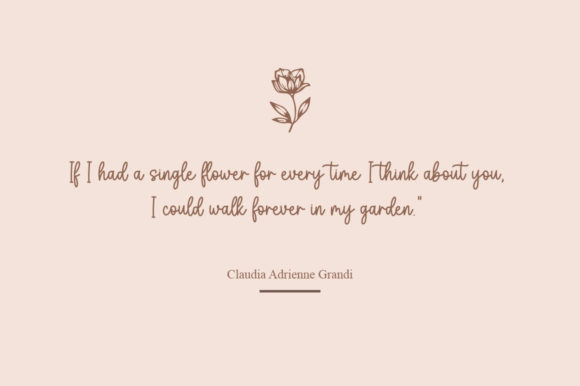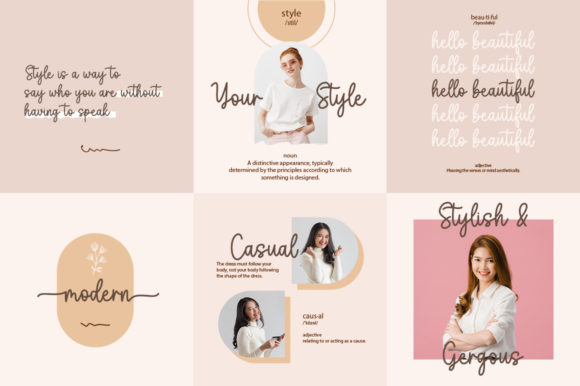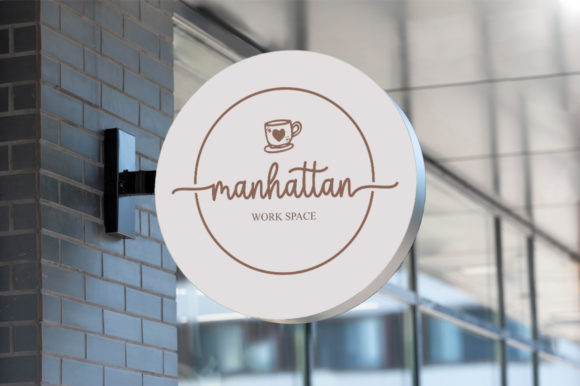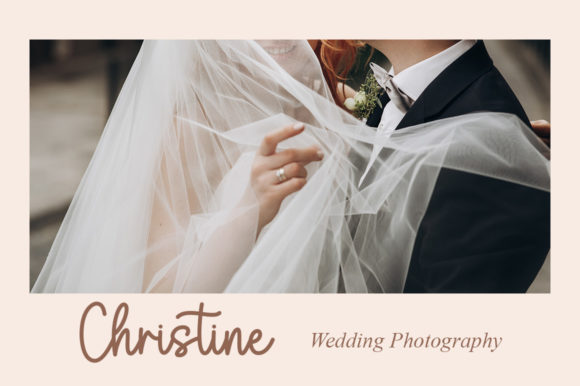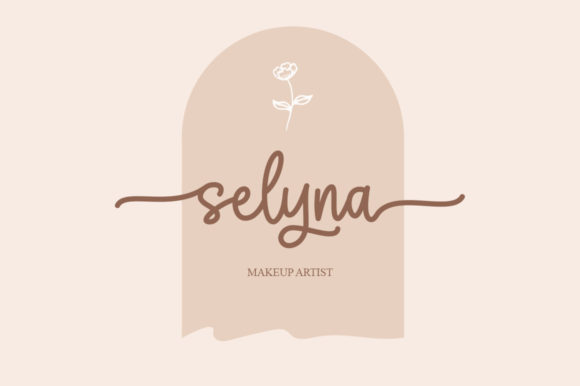
The Quest for Elegance: Discovering the Timeless Charm of Birgitta Font
I still remember the design project that led me to Birgitta Font. I was working on a sophisticated branding campaign for a luxury client, and I was on a mission to find the perfect script font. The brief was simple: elegant, contemporary, and with a nod to classic calligraphy. Sounds easy, right? Well, after hours of scrolling through font libraries and testing dozens of options, I was about to give up. That’s when I stumbled upon Birgitta, and it was love at first sight! ✨
So, what makes Birgitta so special? Let’s dive into the details.
- ✨ Elegant and refined: Birgitta’s fluid strokes and beautiful swashes make it perfect for high-end branding, wedding stationery, and luxury packaging.
- ✅ Contemporary vibe: Despite being inspired by classic calligraphy, Birgitta feels fresh and modern, making it suitable for a wide range of creative projects.
While Birgitta is an amazing font, there are a few things to keep in mind:
- ⚠️ Some swashes might be a bit too ornate for certain projects, so it’s essential to experiment and find the right balance.
- 🤔 Pairing with other fonts can be a bit tricky, but with a little practice, you’ll get the hang of it.
The Story Behind Birgitta: A Glimpse into Its Design Inspiration
Birgitta is more than just a font – it’s a piece of art. Its creator drew inspiration from timeless classic calligraphy, infusing it with a modern twist. The result is a font that’s both elegant and approachable. While the actual story behind Birgitta might be shrouded in mystery, its design is undoubtedly a labor of love.
| Author | Graphix Line Studio |
Q: Is Birgitta suitable for body text?
While Birgitta is stunning as a display font, it might not be the best choice for long-form body text. Its elegant nature makes it perfect for headlines, titles, and short paragraphs.